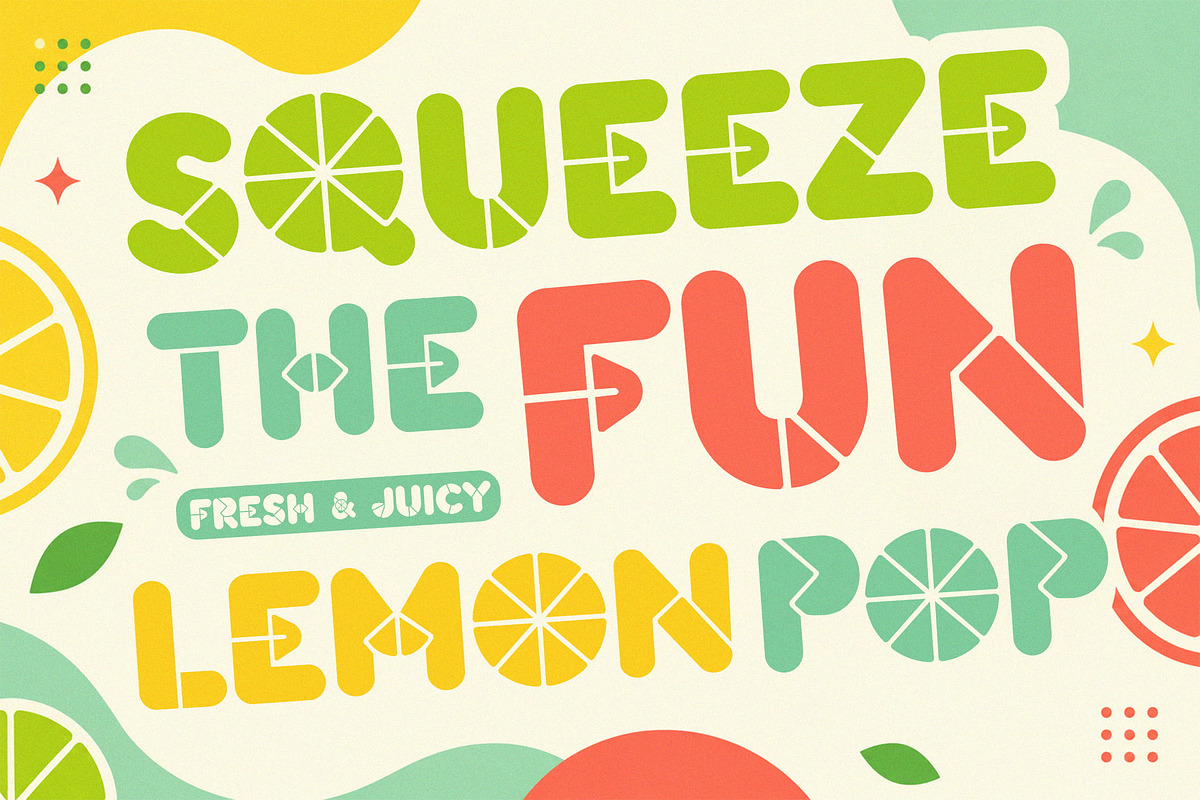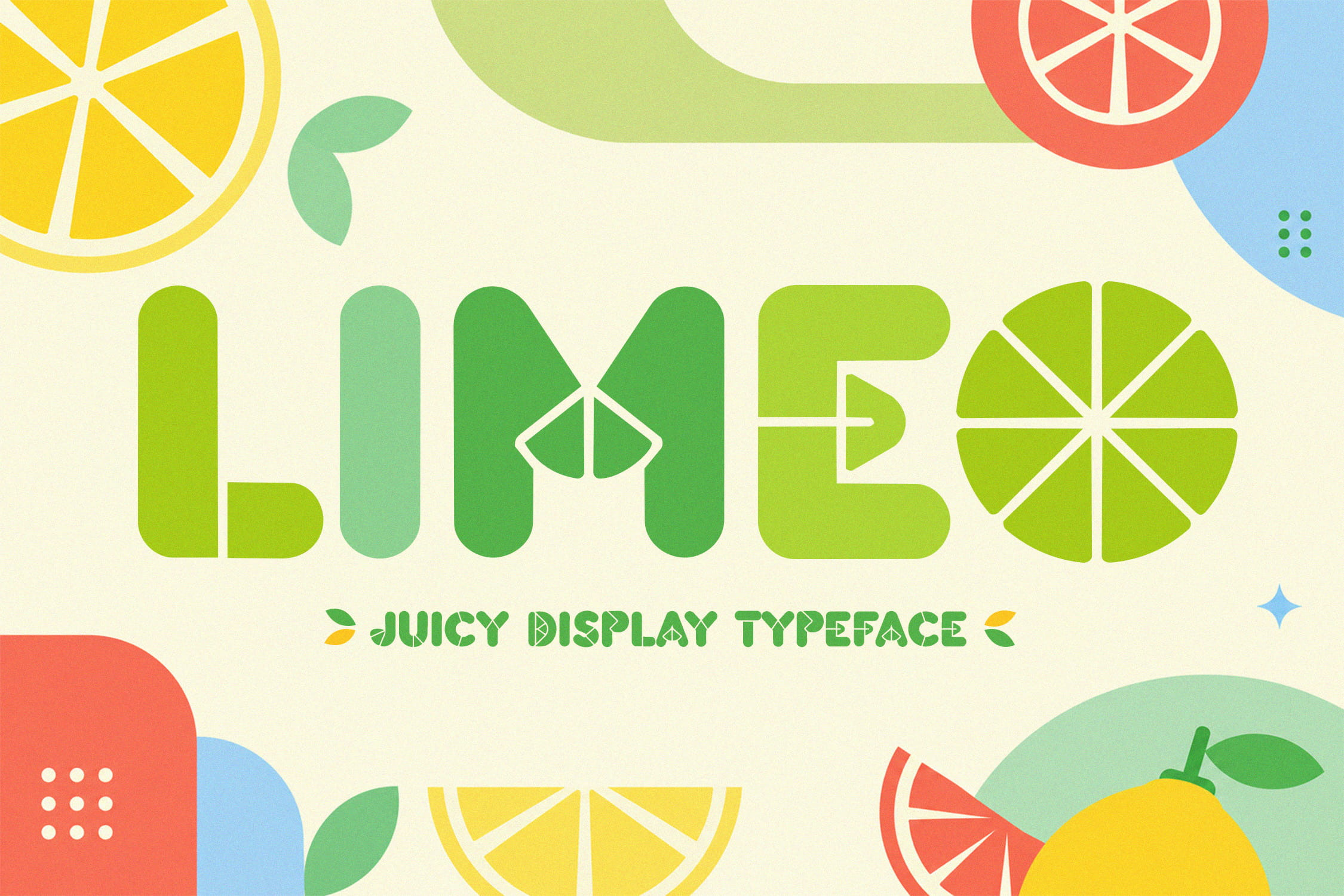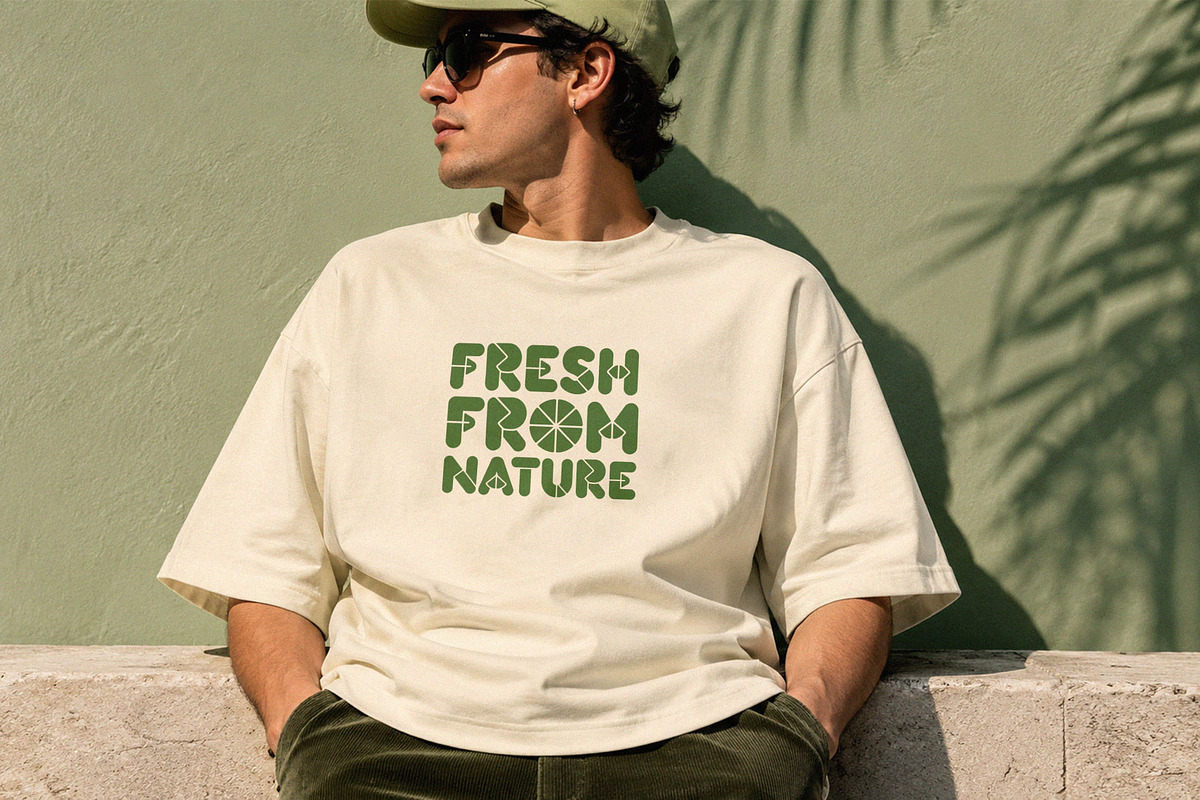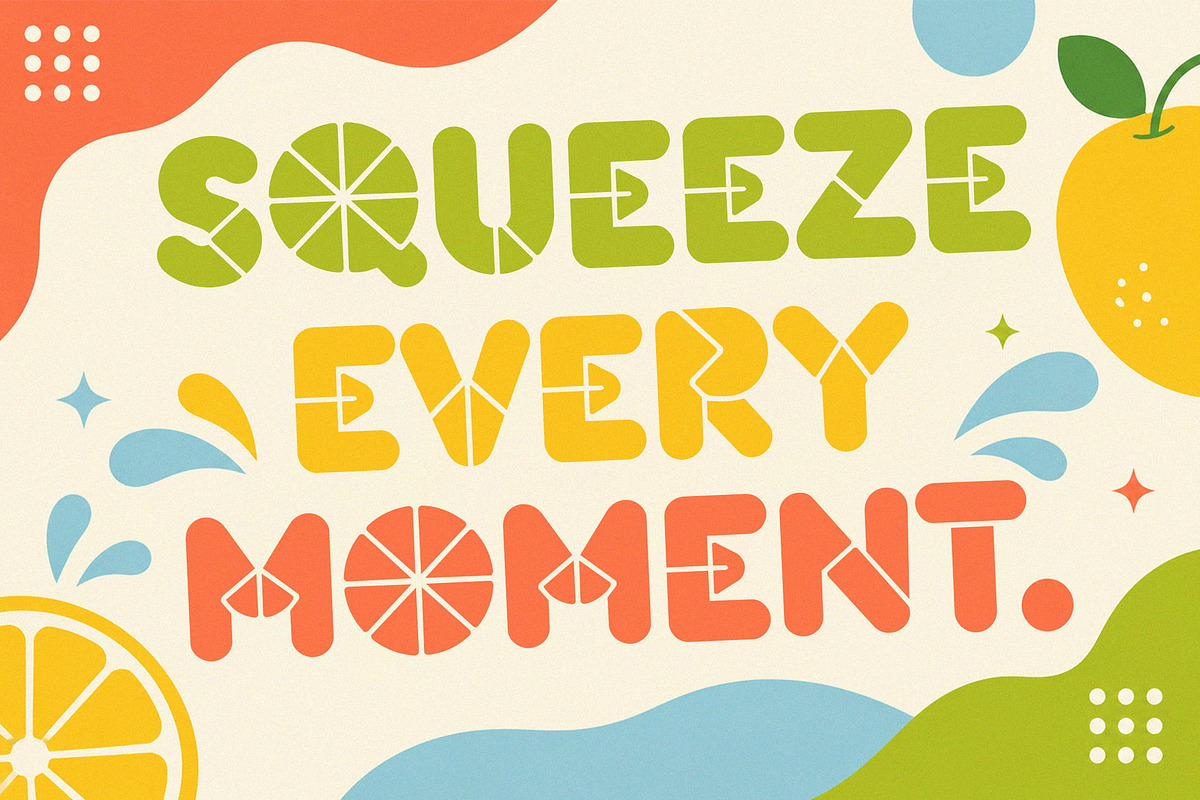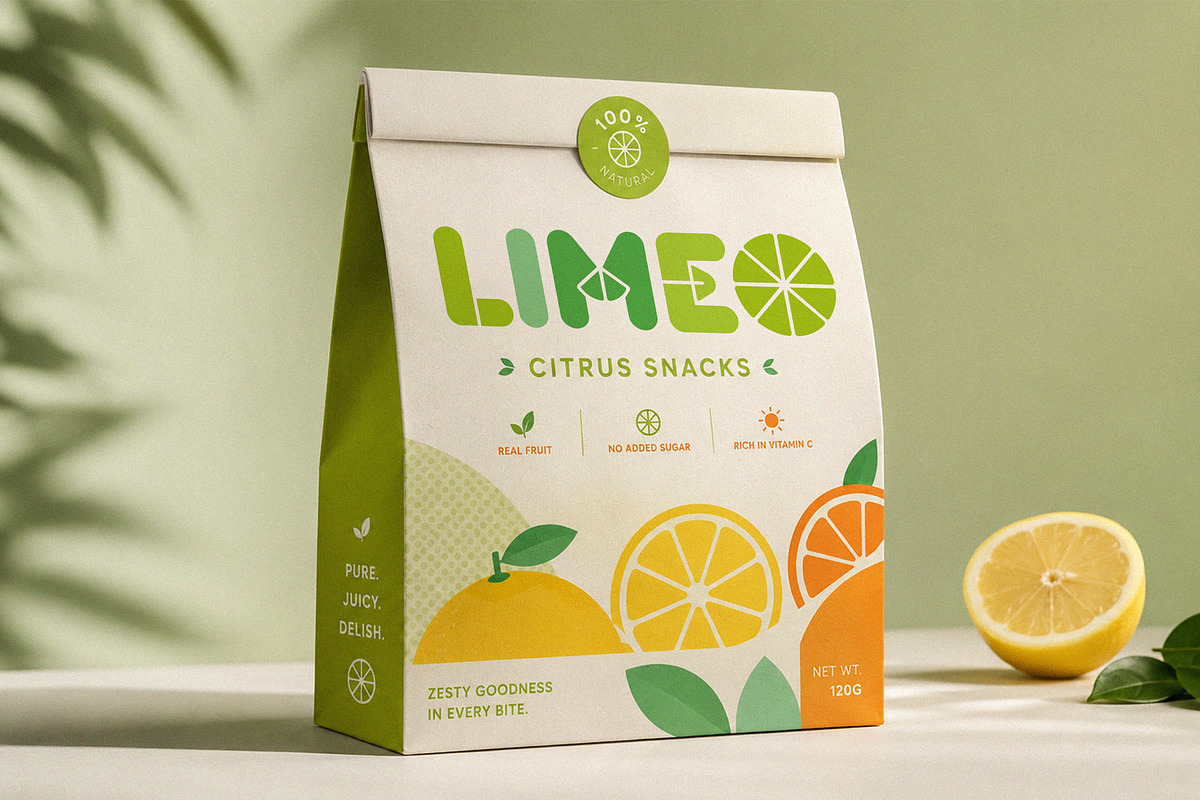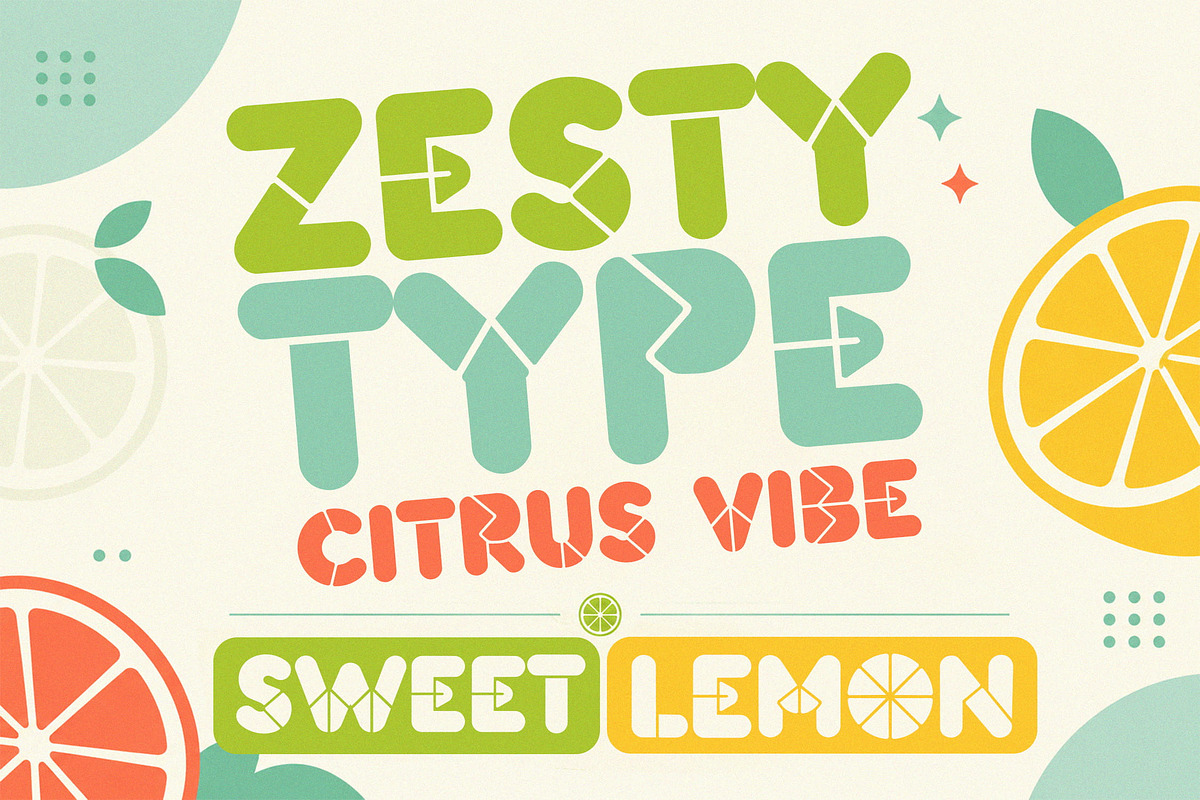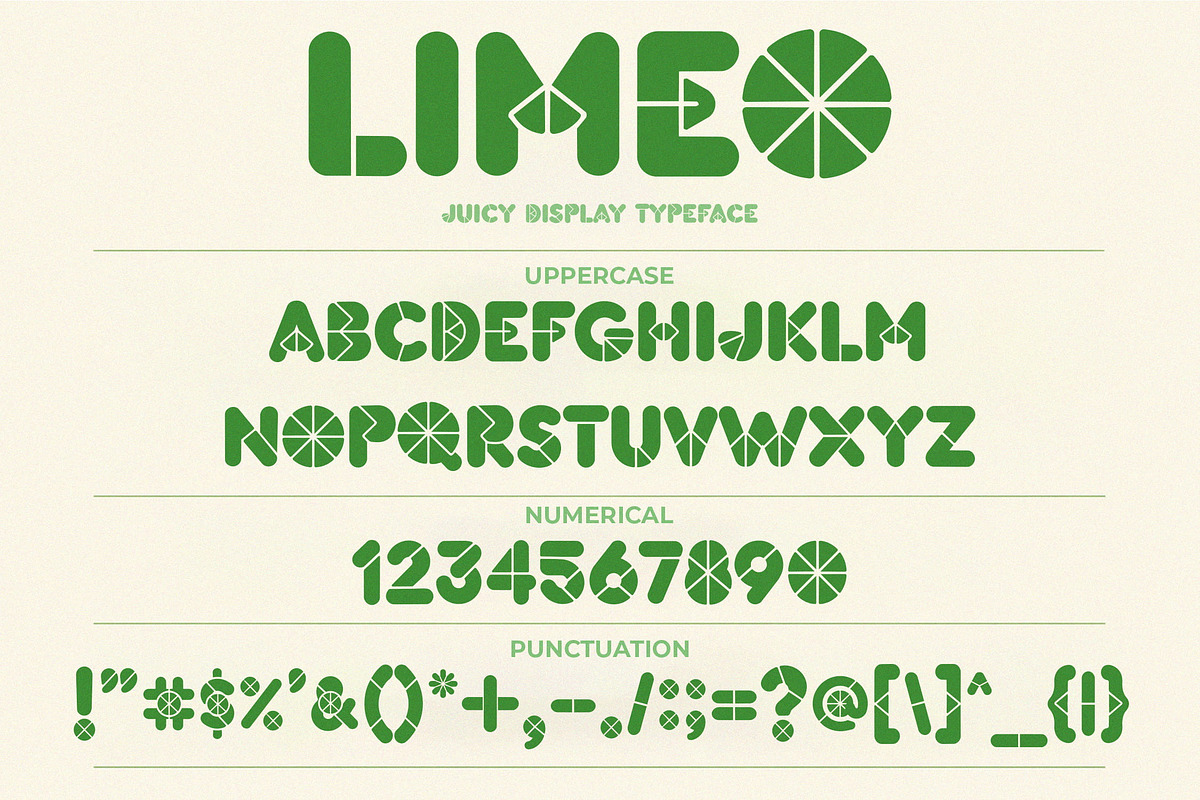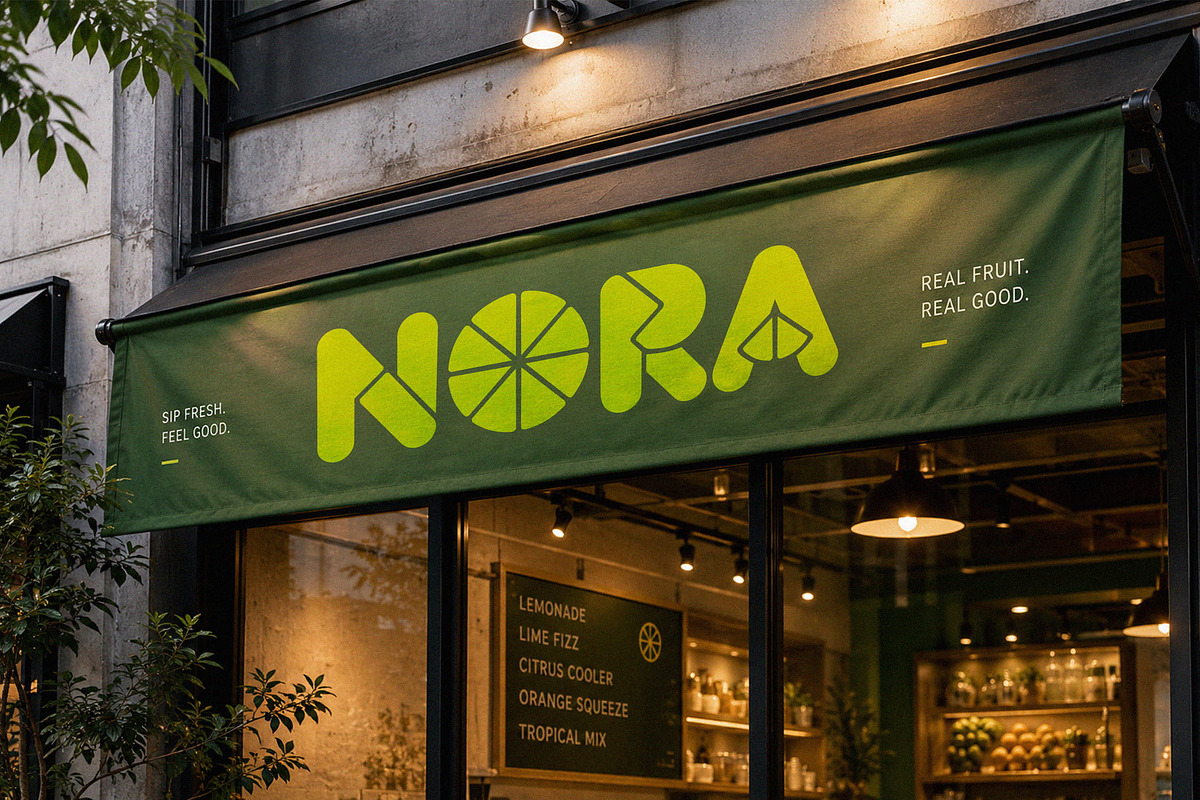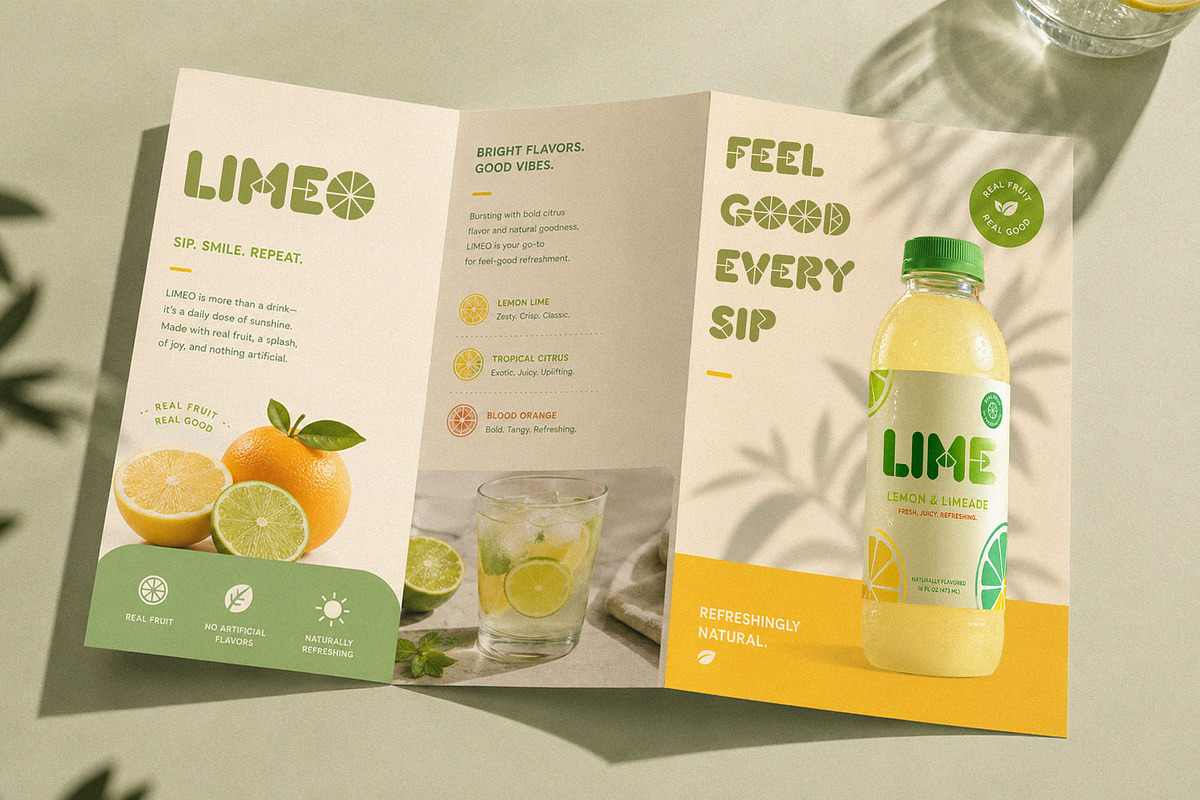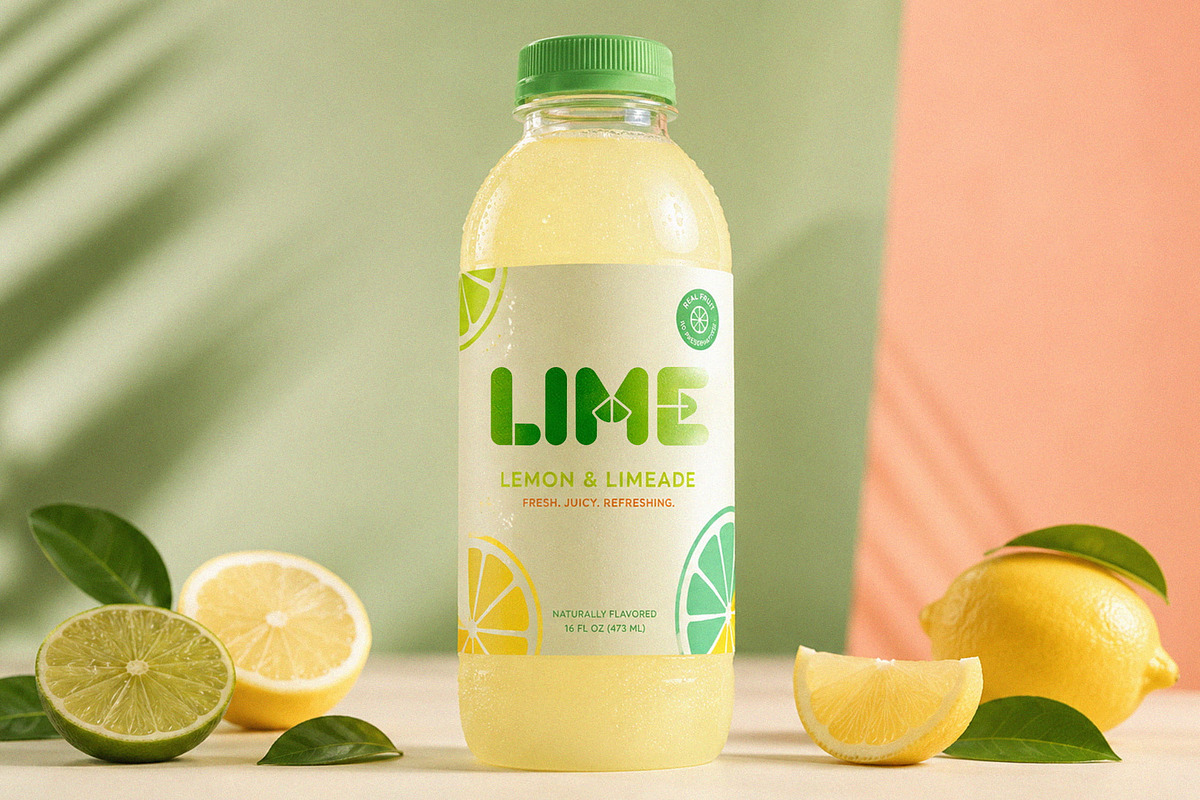
LIMEO - Juicy Display Font
LIMEO is a bold juicy display font inspired by fresh citrus slices, tropical summer vibes, and playful retro packaging design. Featuring rounded geometric letterforms combined with lemon-inspired cut details, this typeface delivers a refreshing, cheerful, and eye-catching personality perfect for vibrant creative projects.
Designed to capture the feeling of freshness, fun, and sunshine, LIMEO brings a sweet citrus aesthetic that works beautifully for food branding, beverage packaging, summer campaigns, posters, merchandise, and modern lifestyle designs.
Ideal for juice brands, lemonade packaging, snack products, café branding, festival posters, apparel graphics, and playful social media content.
Uppercase A–Z
Numbers (0–9)
Citrus slice-inspired letterforms
Bold rounded display style
Juicy geometric cut details
Playful retro tropical aesthetic
Clean and modern handcrafted look
Perfect for summer and food branding
Strong visual impact for headlines
Easy to use for print and digital projects
Lemonade & juice packaging
Food and beverage branding
Snack product packaging
Café & restaurant logos
Summer event posters
Merchandise & apparel design
Social media promotions
Tropical themed branding
Kids and playful design projects